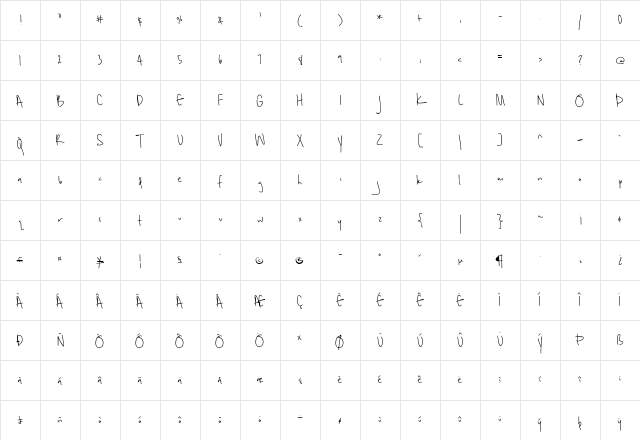
Complete unrulyness Regular glyph index. Displaying only characters natively supported by unrulyness Regular font.
unrulyness is a composed and adaptable typeface that performs quietly and consistently across a wide range of design contexts.